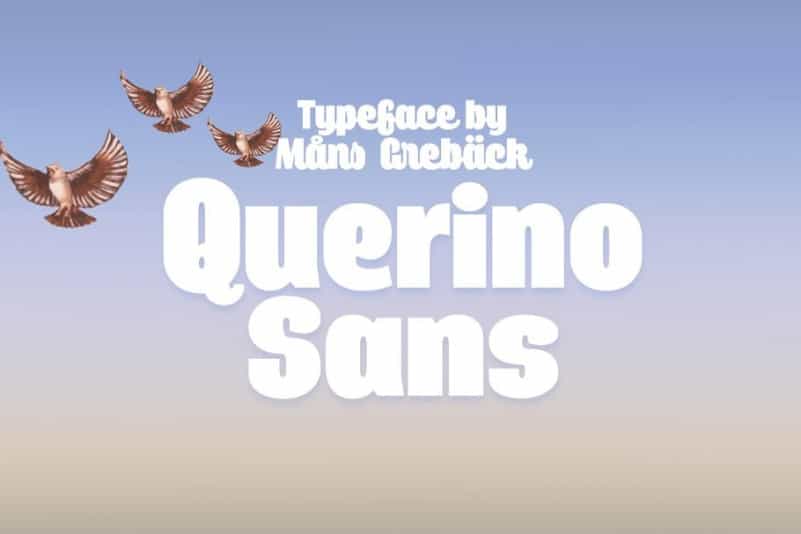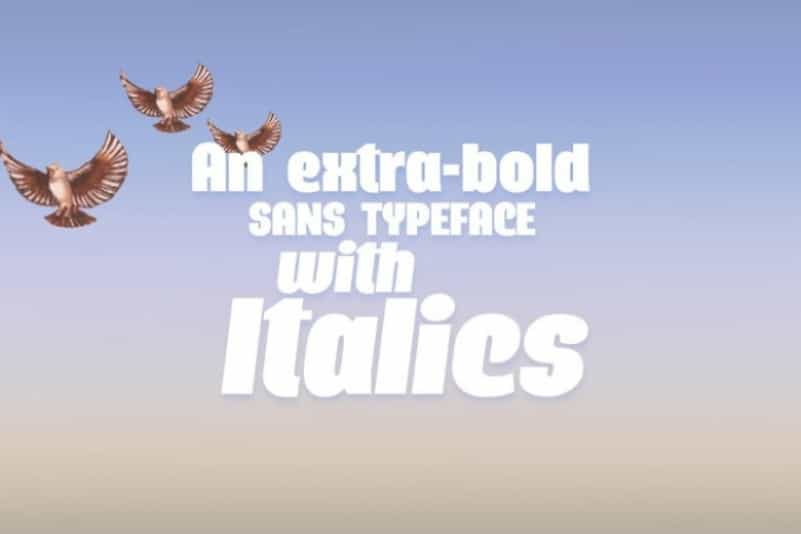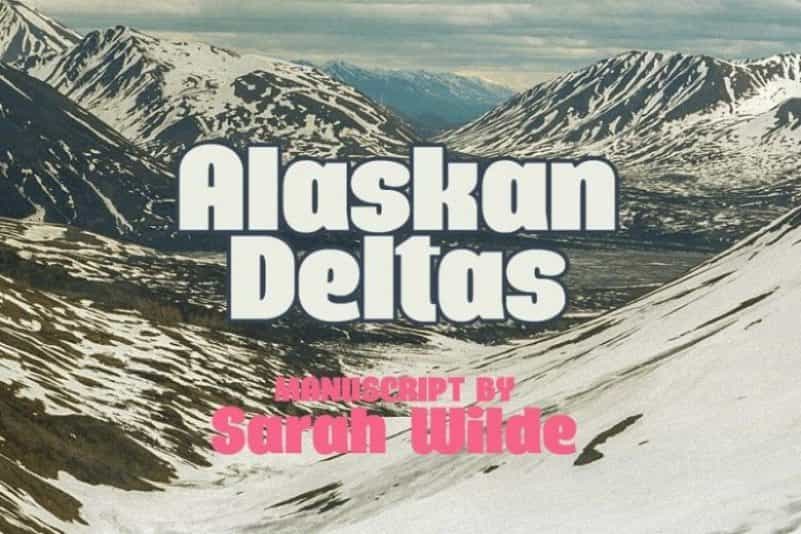
Querino Font is a creation of Mans Greback and it has been released under his name. It is an additional bold sans-serif font, which was designed by Måns Grebäck in 2018-2019. It is presented in both regular and italic versions. Besides, have a look at its sibling Querino Script.